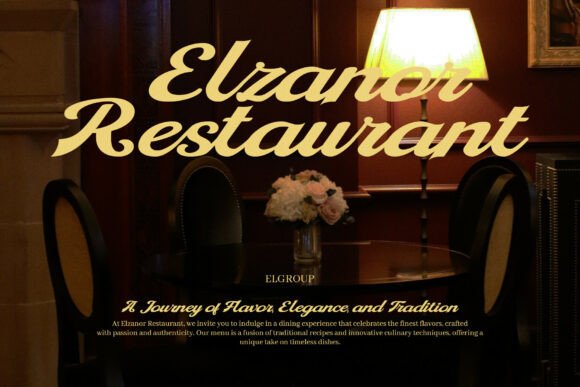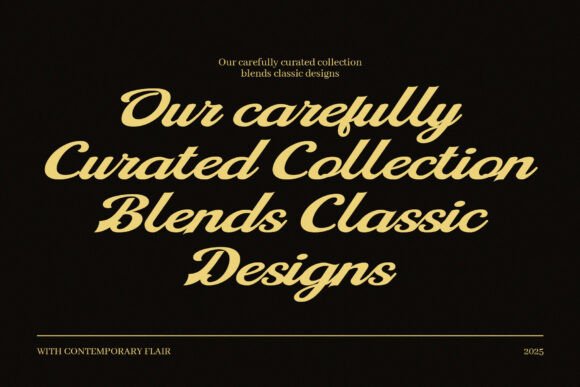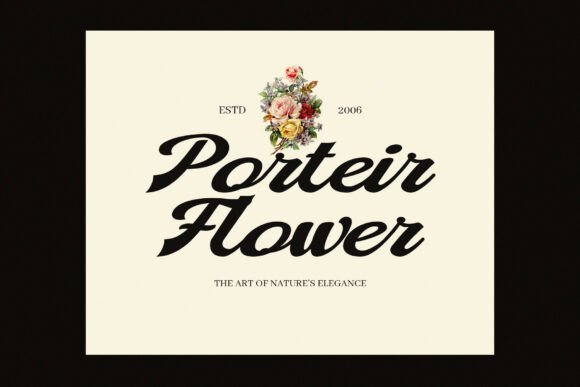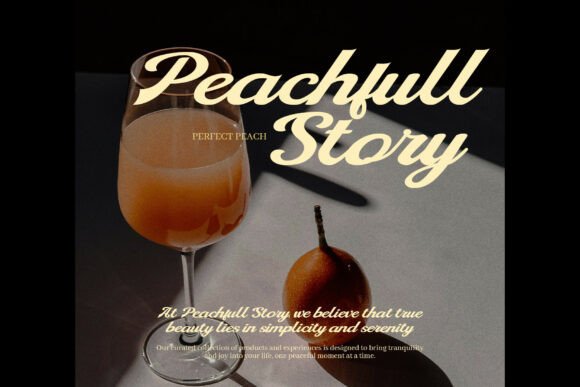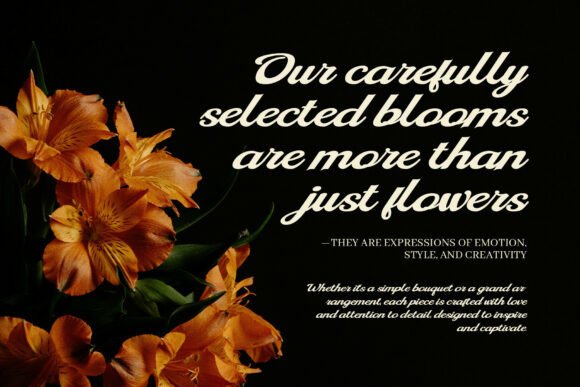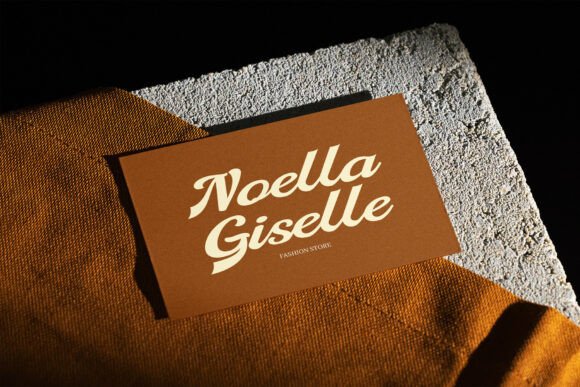
Unlocking the Power of Galaxy Bold Script Font
Have you ever been in the middle of a design project, and suddenly, you’re stuck on finding the perfect font? I recall a particularly stressful experience while working on a luxury brand’s logo design. The client wanted something that exuded elegance, sophistication, and a hint of boldness. After hours of scouring through font libraries, I stumbled upon Galaxy Bold Script Font. It was love at first sight! ✨
Galaxy Bold Script Font has been a game-changer in my design journey, and I’m excited to share its awesomeness with you. This elegant and classy script font offers beautifully crafted letterforms that combine boldness with refined calligraphy, making it perfect for a wide range of design needs.
What Makes Galaxy Bold Script Stand Out?
So, what sets Galaxy Bold Script Font apart from other fonts? Here are some of its standout features:
- Bold & Elegant Design: A strong yet refined script that communicates luxury and class.
- Varied Ligatures: Smooth, connected letters for natural and stylish text flow.
- Multiple Calligraphy Alternates: Offers creative flexibility and unique styling options.
- Wide Range of Use Cases: Ideal for branding, logos, weddings, invitations, magazines, posters, and more.
- ✨ Elegant and sophisticated design that’s perfect for luxury brands.
- ✅ Highly versatile and works well across large headlines and smaller text.
- 💫 Beautifully crafted ligatures and calligraphy alternates.
- 📚 Extensive range of use cases, from branding to editorial design.
- 🤔 May not be the best fit for very casual or playful designs.
- ⚠️ Some users might find the font a bit too bold for certain applications.
The Designer Inspiration Behind Galaxy Bold Script Font
The story behind Galaxy Bold Script Font is one of passion and dedication. The designer, inspired by the luxury and sophistication of the galaxy, aimed to create a font that would evoke a sense of elegance and refinement. Through countless hours of craftsmanship and attention to detail, Galaxy Bold Script Font was born.
Q: What makes Galaxy Bold Script Font unique?
A: Galaxy Bold Script Font stands out due to its bold yet elegant design, varied ligatures, and multiple calligraphy alternates.